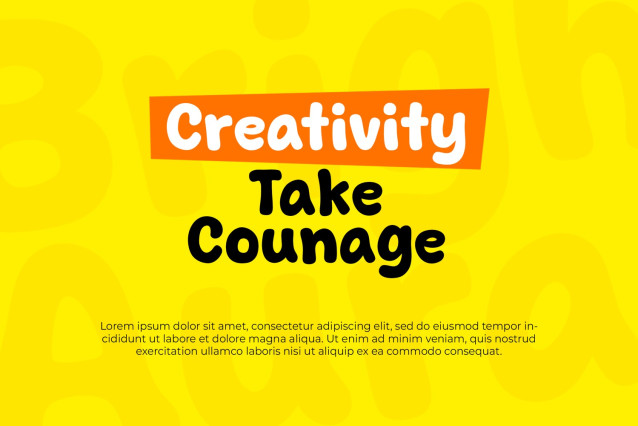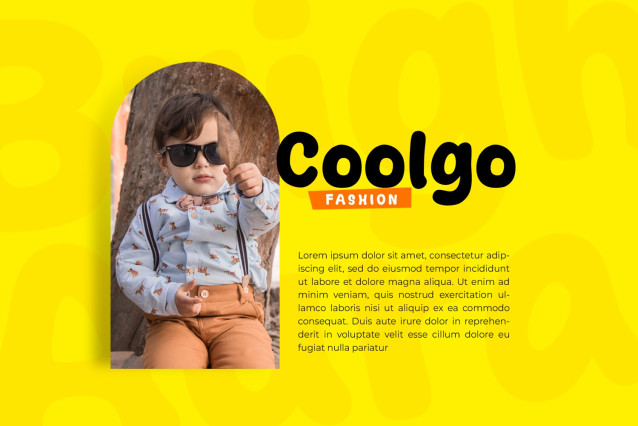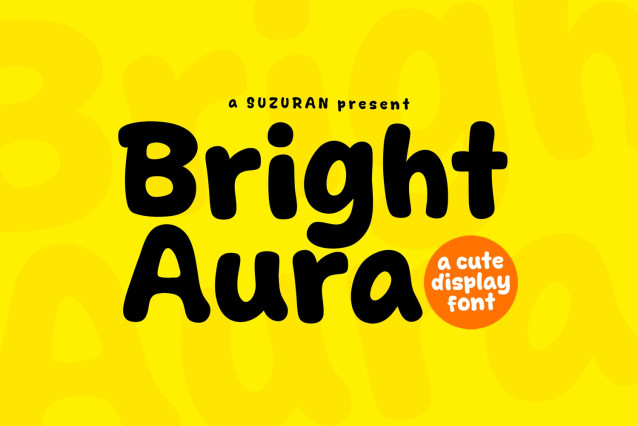
Bright Aura Font
Right Aura Font, a font that is very fresh, cute and bold style display font for your design project. Bright Aura is perfectly suited to logo, stationery, poster, apparel, branding, wedding invitation, card, tagline, layout design, and much more !!.